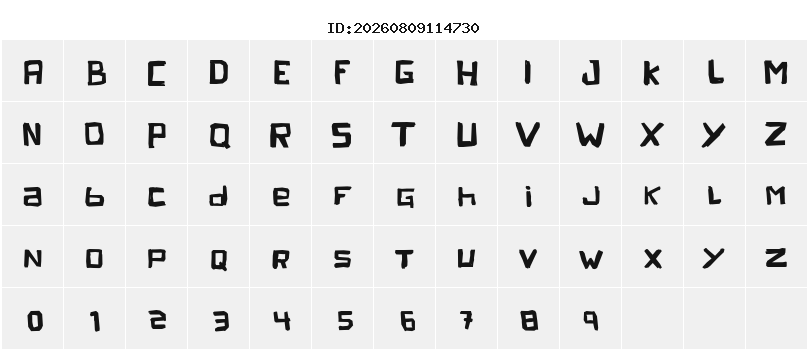
• Font Name: Peleja
• Font Style: regular-1.0
• Font ID: FontForge 2.0 : Peleja Regular : 20-12-2013
• Full Font Name: Peleja Regular
• PostScript Name: peleja-regular-1.0
• Character Count: 191
About Peleja.otf
Peleja.otf is a modern, elegant sans-serif font designed for ultimate readability and visual harmony. Perfect for branding, headlines, web design, and print materials.